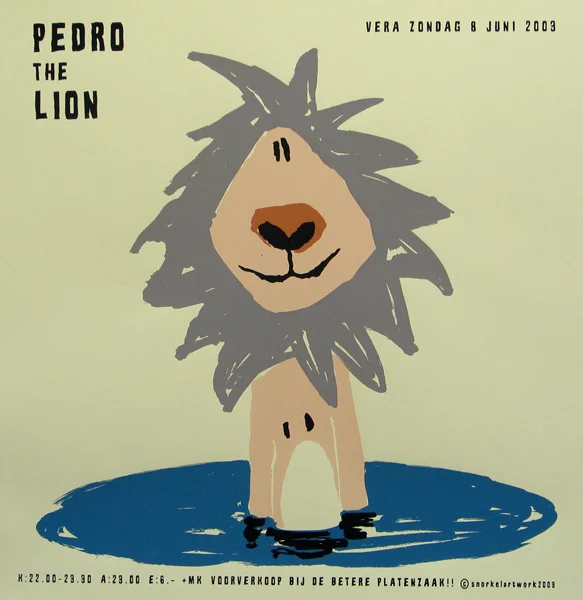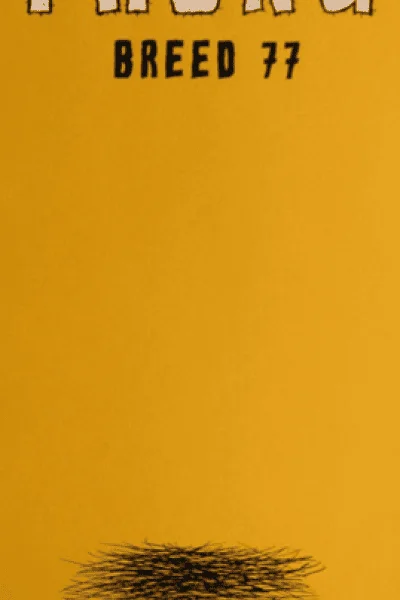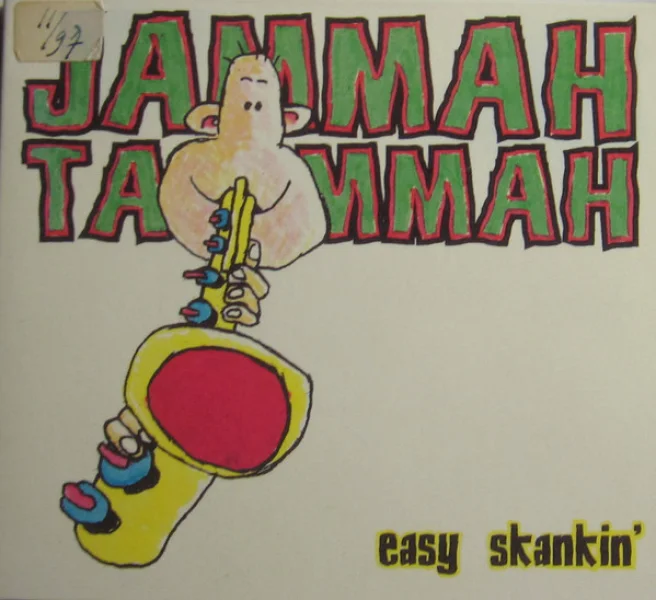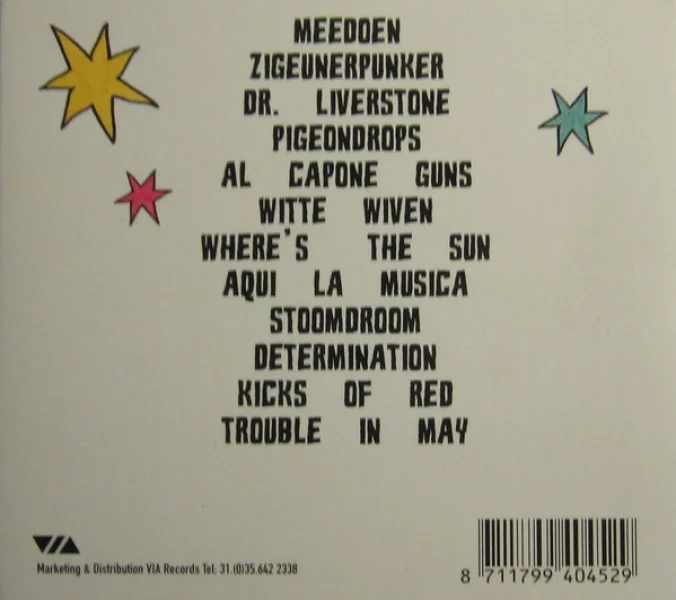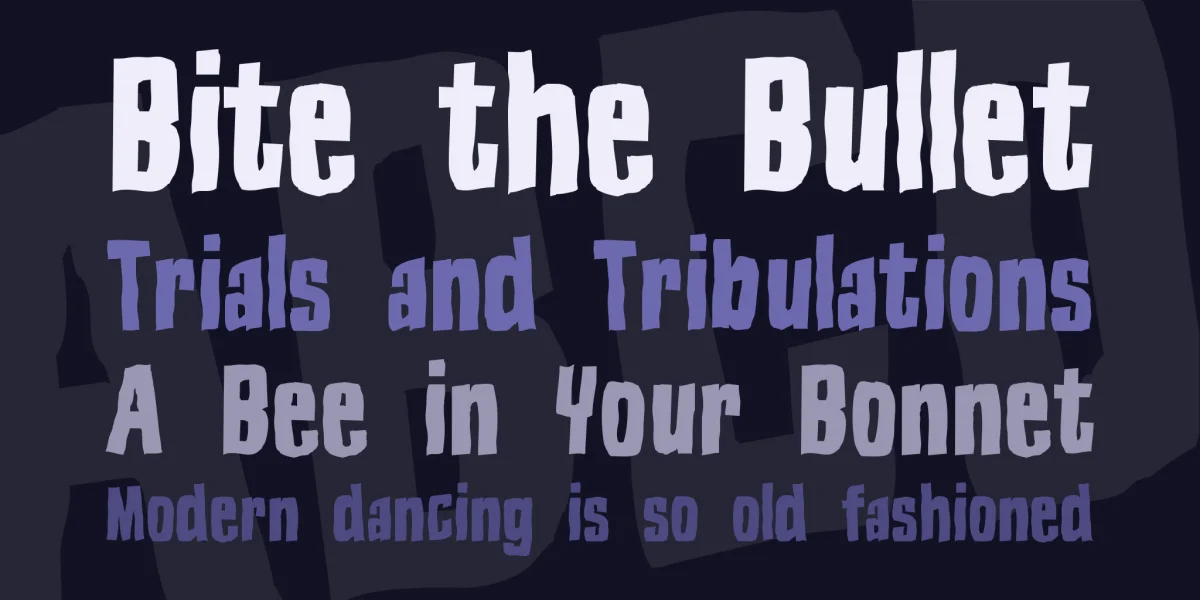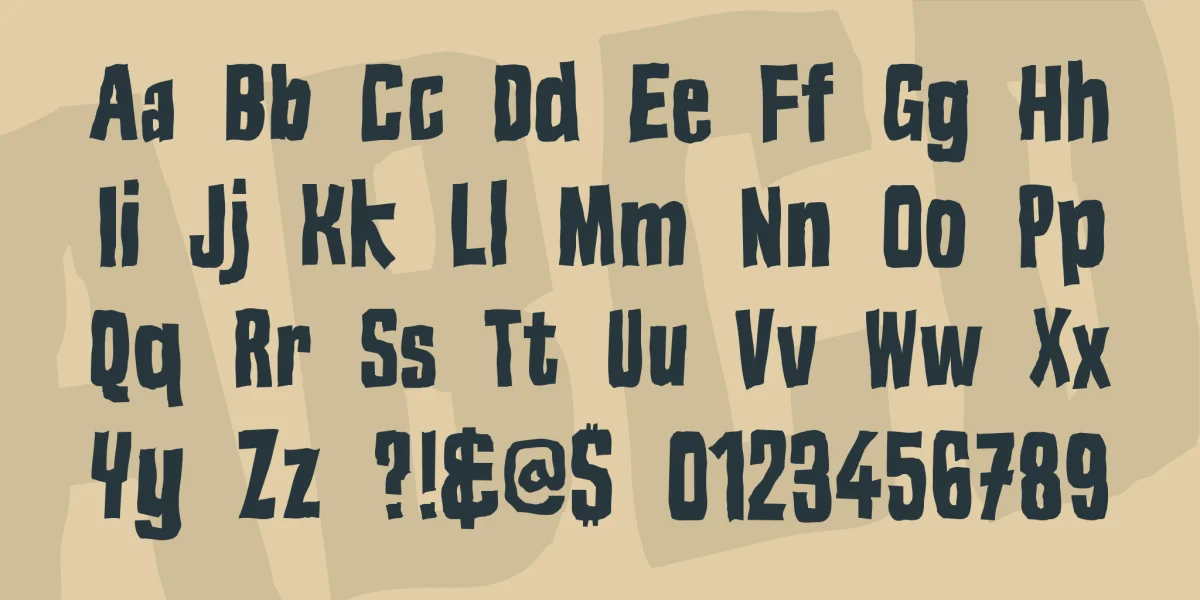
Rough, ugly font I made one evening to try out making a font with CorelDraw. This has been used a lot in the nineties by the people at the Vera club in Groningen (http://www.vera-groningen.nl) and has been used on several record sleeves of ska band Jammah Tammah.